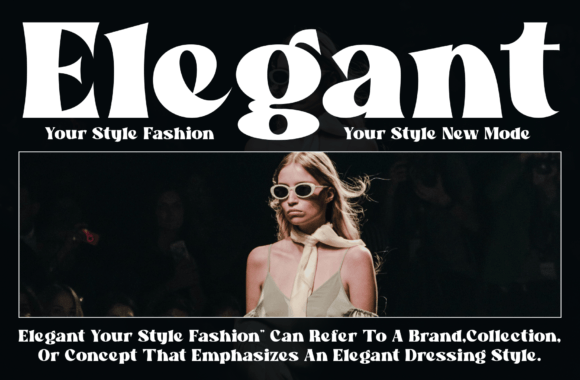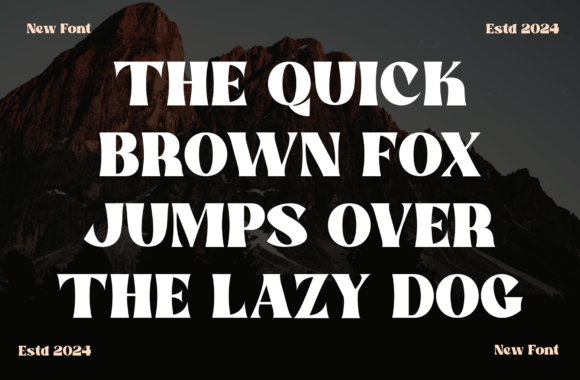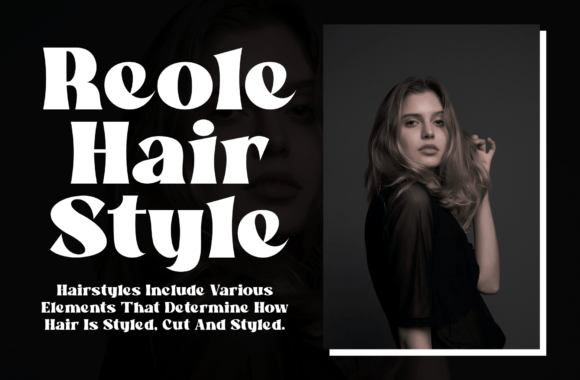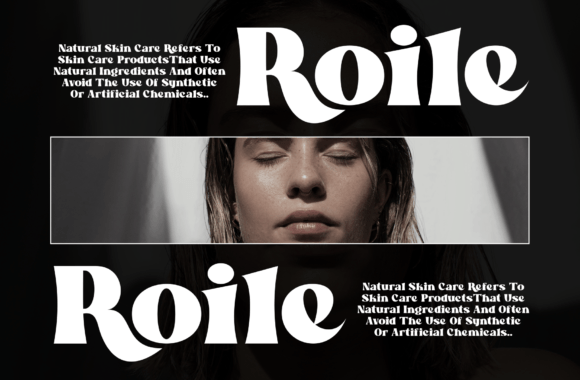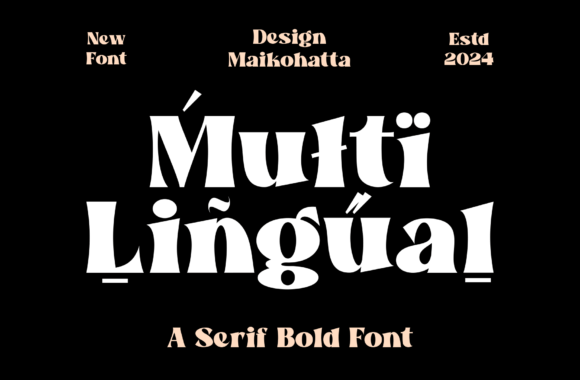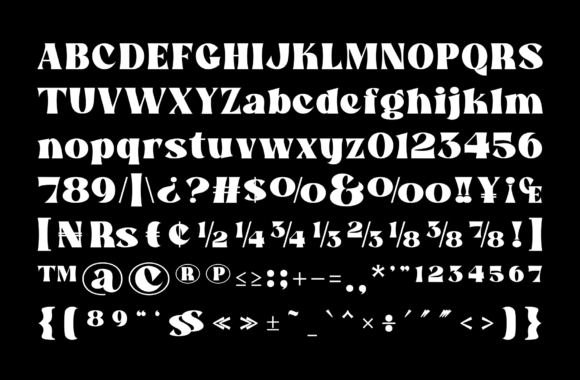
Introduction to Recion Font Font
Fonts play a crucial role in design, and the Recion Font font is a typeface that brings both character and versatility to any project. Whether you’re working on a branding project, a website, or a print design, the Recion Font font offers a unique style that can elevate your work.
Introducing our new product **Recion** – Serif Bold This font features a balanced proportion of stroke thickness and fineness, creating attractive and easy-to-read visuals.
This modern serif style is often characterized by a bold distinction between thick and thin lines, providing a touch that is understated but still stands out .
The Recion Font font is more than just a typeface – it’s a design tool that helps you communicate your message with style and clarity. Its unique character set and versatile design make it suitable for a wide range of applications, from elegant invitations to bold headlines.
With its carefully crafted letterforms and balanced proportions, the Recion Font font ensures readability and visual appeal across all mediums.
The Recion Font font stands out with its unique design, exceptional readability, and versatility across various design applications.